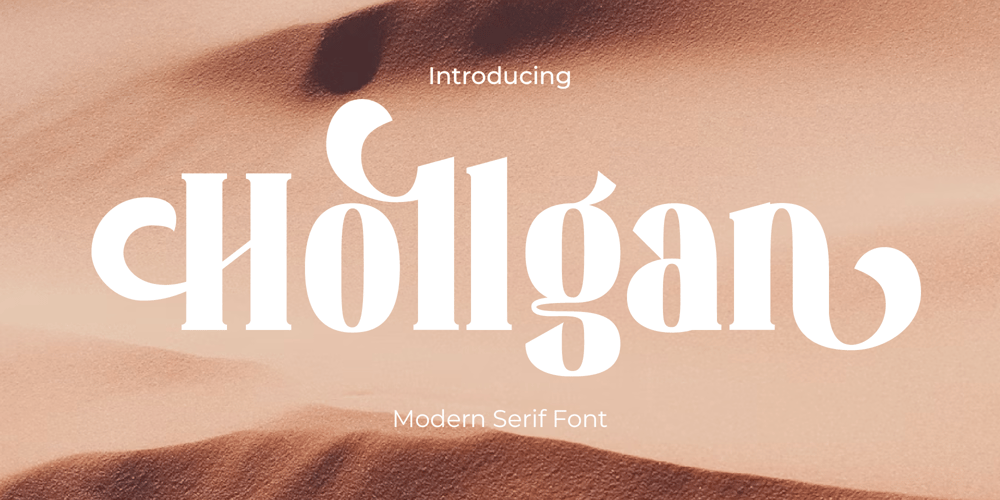
Hollgan
Hollgan font
Hollgan Font Family was designed by Risma Mulyasari and published by Risma Type. Hollgan contains 2 styles and family package options. ✨ Hollgan ✨Sophisticated and Modern Serif Display FontHollgan is a serif display font designed to embody elegance and contemporary appeal. With its refined lines and striking curves, this font is perfect for elevating design projects that demand sophistication and style, such as: Branding & Logos: Make a bold, unforgettable impression. Editorial & Magazines: Add sophistication and professionalism. Invitations & Cards: Elevate special moments with luxury. 💎 Create a lasting impression with every character of Hollgan.Infuse your designs with elegance and modern flair that stands out!